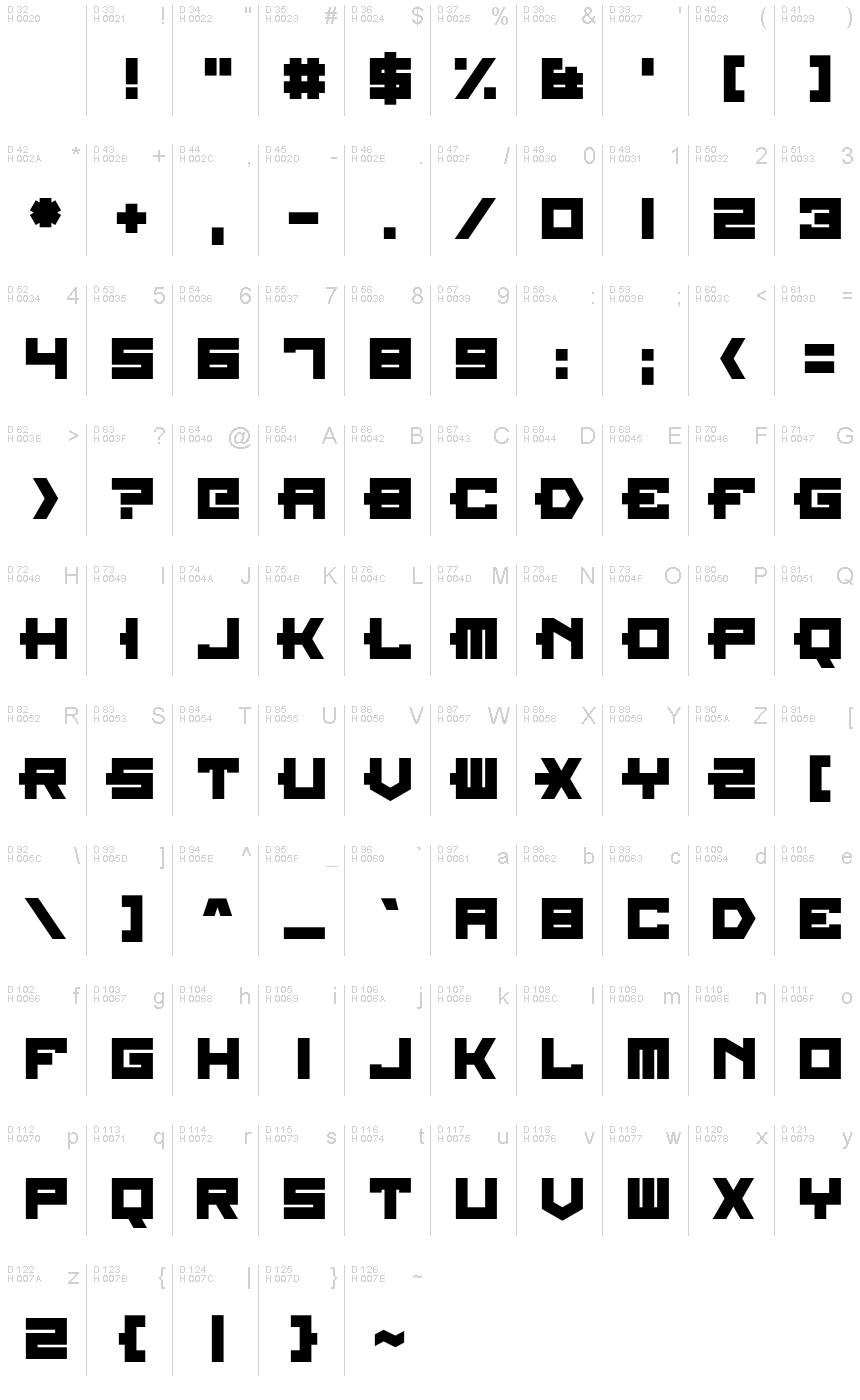
For The World Straight
For The World Straight, a bold and expanded display font from the creative minds at Chequered Ink, exudes a captivating techno-inspired aesthetic. With its striking letterforms and dynamic proportions, this font commands attention, effortlessly evoking a futuristic and avant-garde ambiance. The font's distinct personality and visual impact make it a compelling choice for branding, packaging, and headline design projects that seek to convey a sense of cutting-edge modernity and technological innovation.
The versatility of For The World Straight allows it to seamlessly adapt to a wide range of design applications, from eye-catching event posters and album covers to impactful digital interfaces and editorial layouts. Its bold and expanded characteristics lend themselves particularly well to emphatic display settings, where the font's strong presence can captivate and engage the viewer, elevating the overall visual impact of the design.